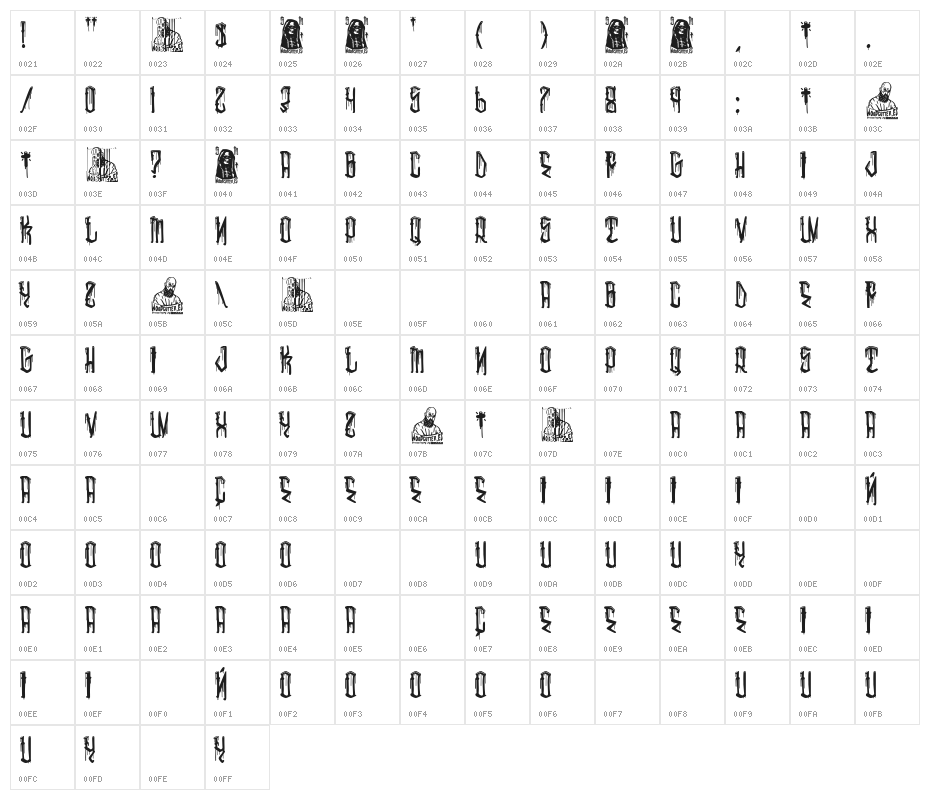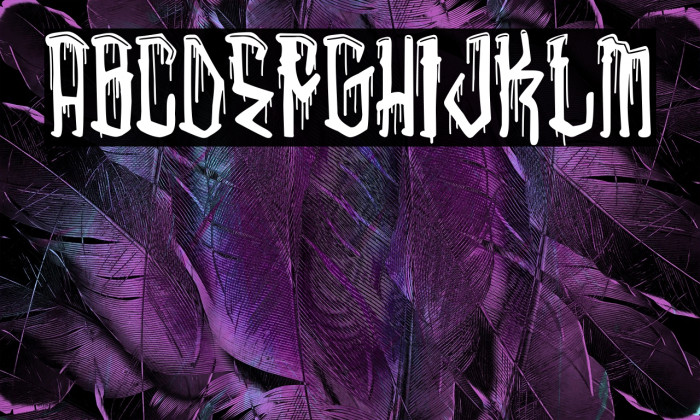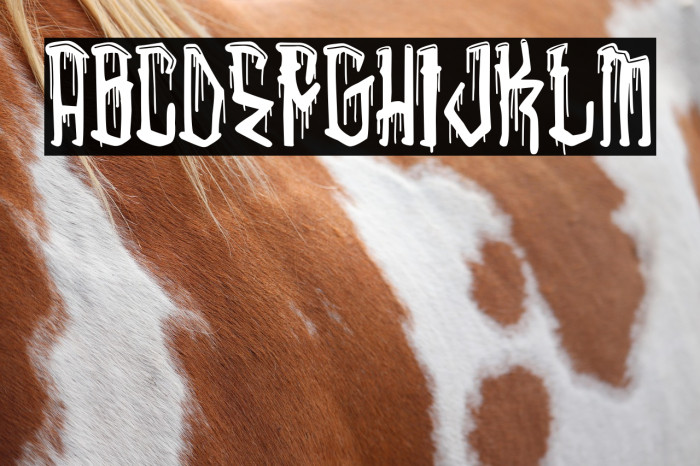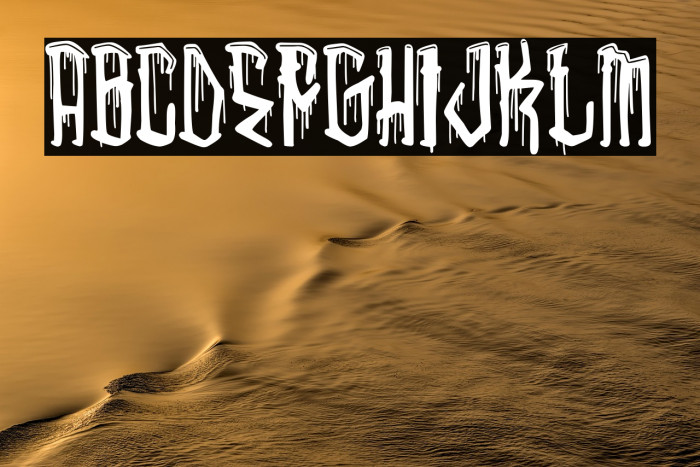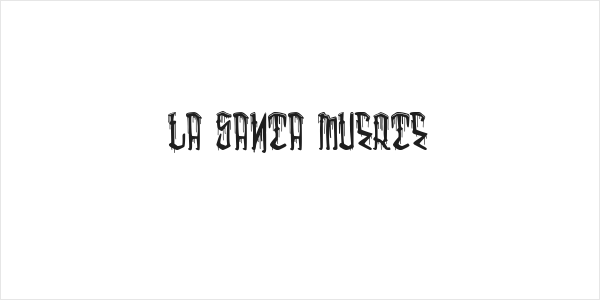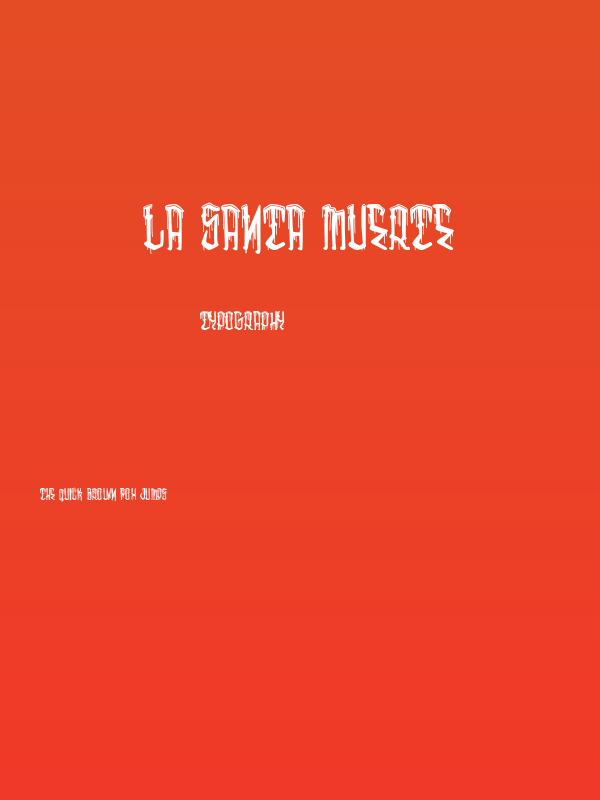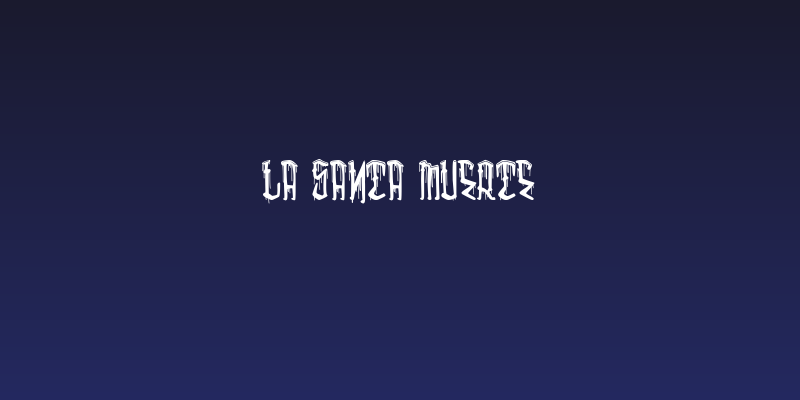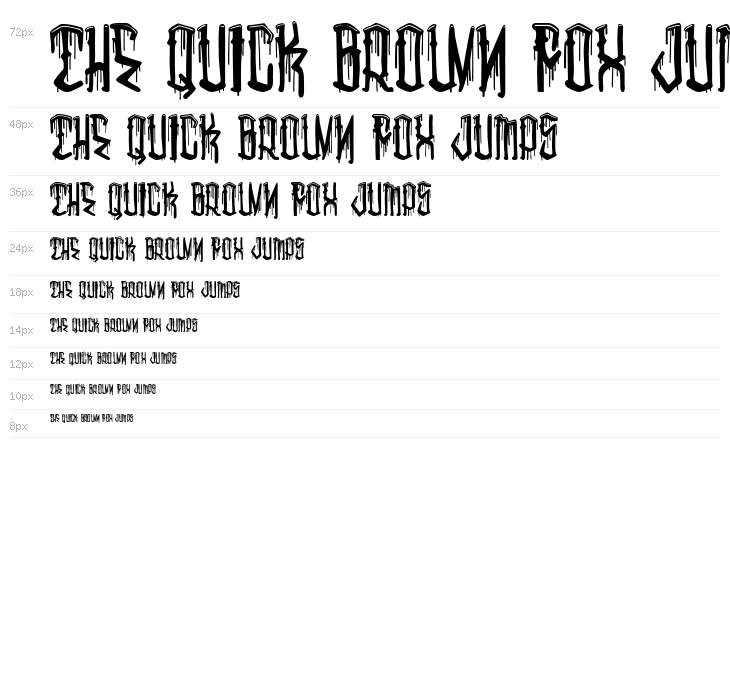
La Santa Muerte Font
La Santa Muerte Description
This font features a dramatic and eerie design, characterized by its dripping effect that gives each character a haunting appearance. The letters are bold and angular, with sharp edges that enhance the gothic and horror-inspired aesthetic. The uppercase and lowercase letters maintain a consistent style, while the numbers and special characters follow the same dripping motif. The overall look is reminiscent of horror movie titles or Halloween-themed designs, making it ideal for projects that require a spooky or mysterious vibe.
| Overall Style | Gothic, Horror, Decorative |
| Proposed Projects | Ideal for Halloween invitations, horror movie posters, themed event flyers, and spooky merchandise designs. |